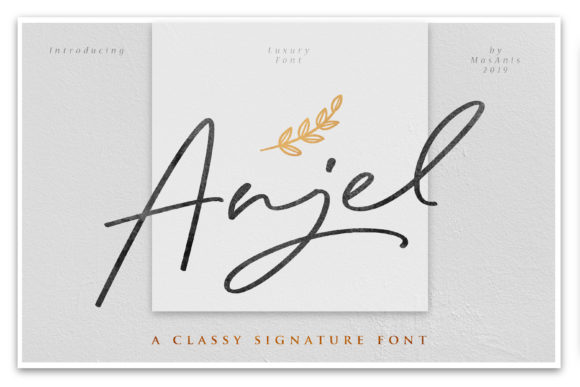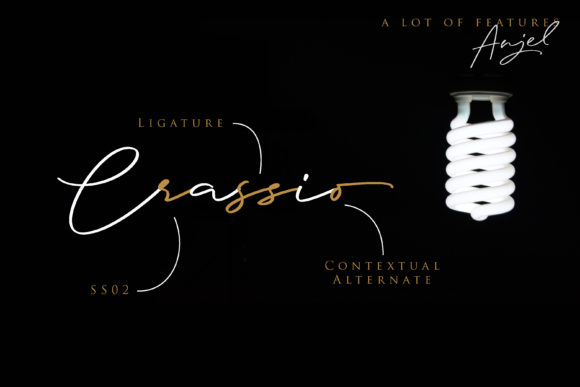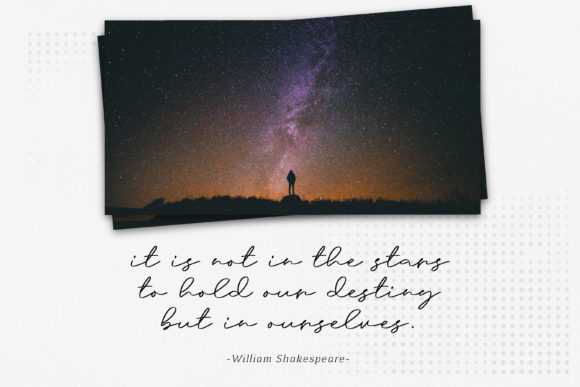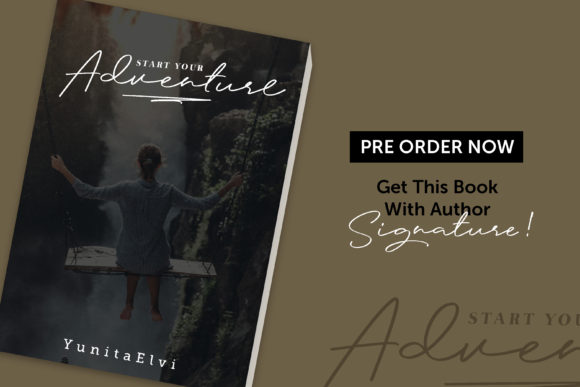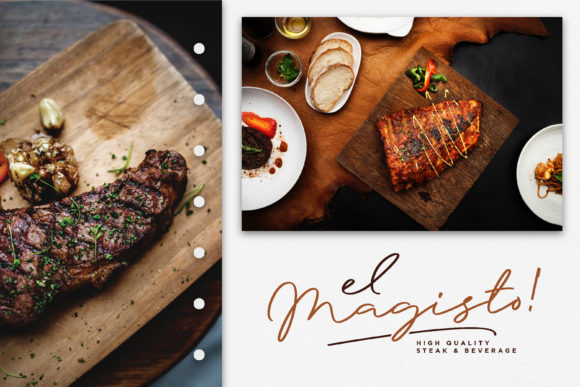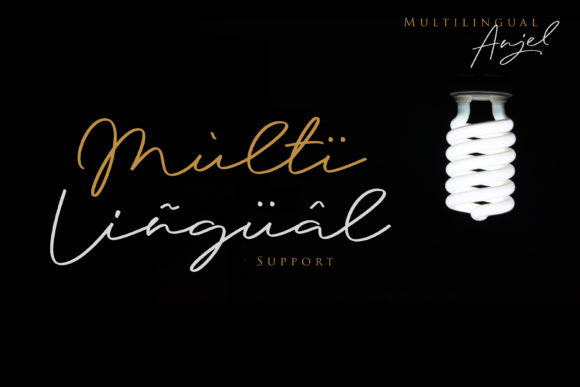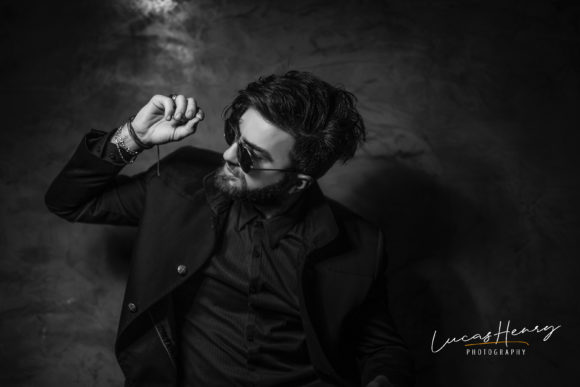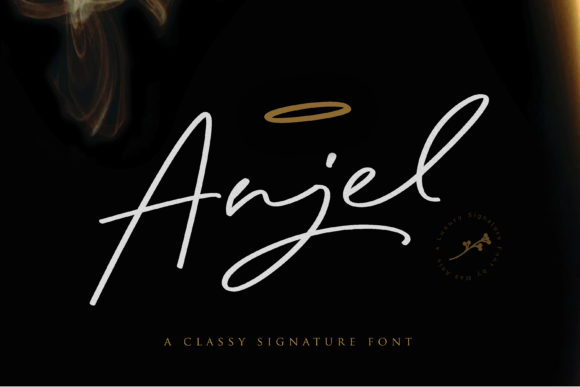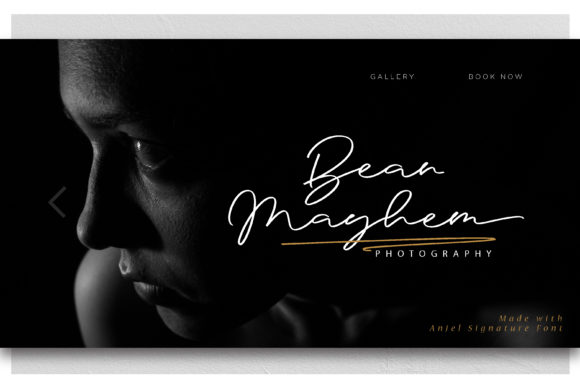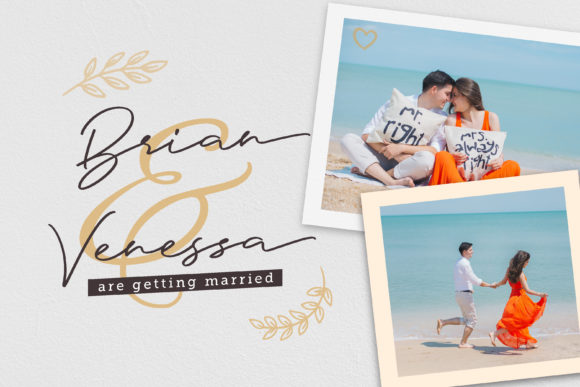
Anjel Font
About Anjel Font
The Anjel is a classy luxury signature font. It can be used for watermarks, logos, branding, prints, magazines, and much more!